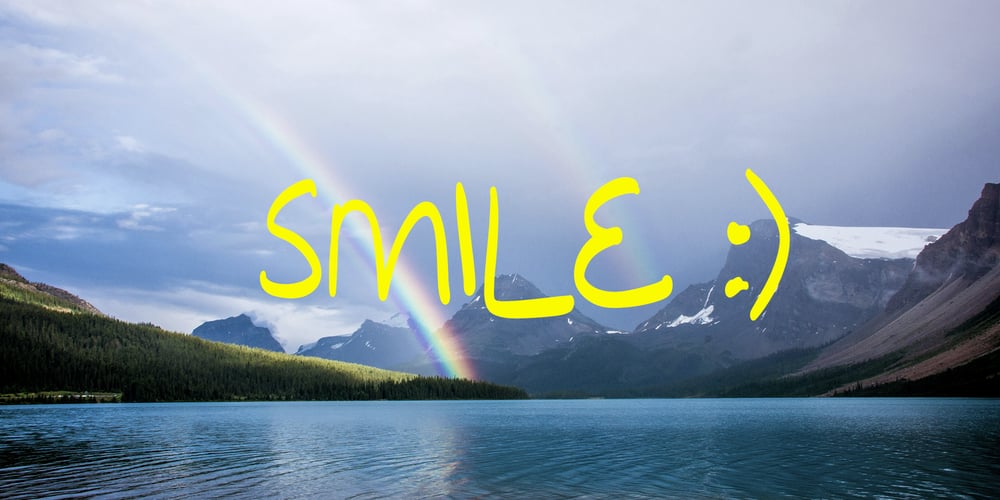
Joy Pro
Joy Pro font
Joy Pro Font Family was designed by Edward Marshall and published by The Design Speak. Joy Pro contains 1 styles and family package options. Joy Pro is a delightful handwritten font designed to evoke a sense of happiness and lightheartedness. Its playful curves and whimsical strokes bring a joyful energy to any project, making it perfect for invitations, greeting cards, and creative digital content. The font’s organic flow and unique character variations create a personalized feel, reminiscent of joyful hand-written notes and doodles. With its cheerful aesthetic, Joy Pro effortlessly infuses a sense of warmth and positivity, transforming ordinary text into an expression of happiness and creativity.